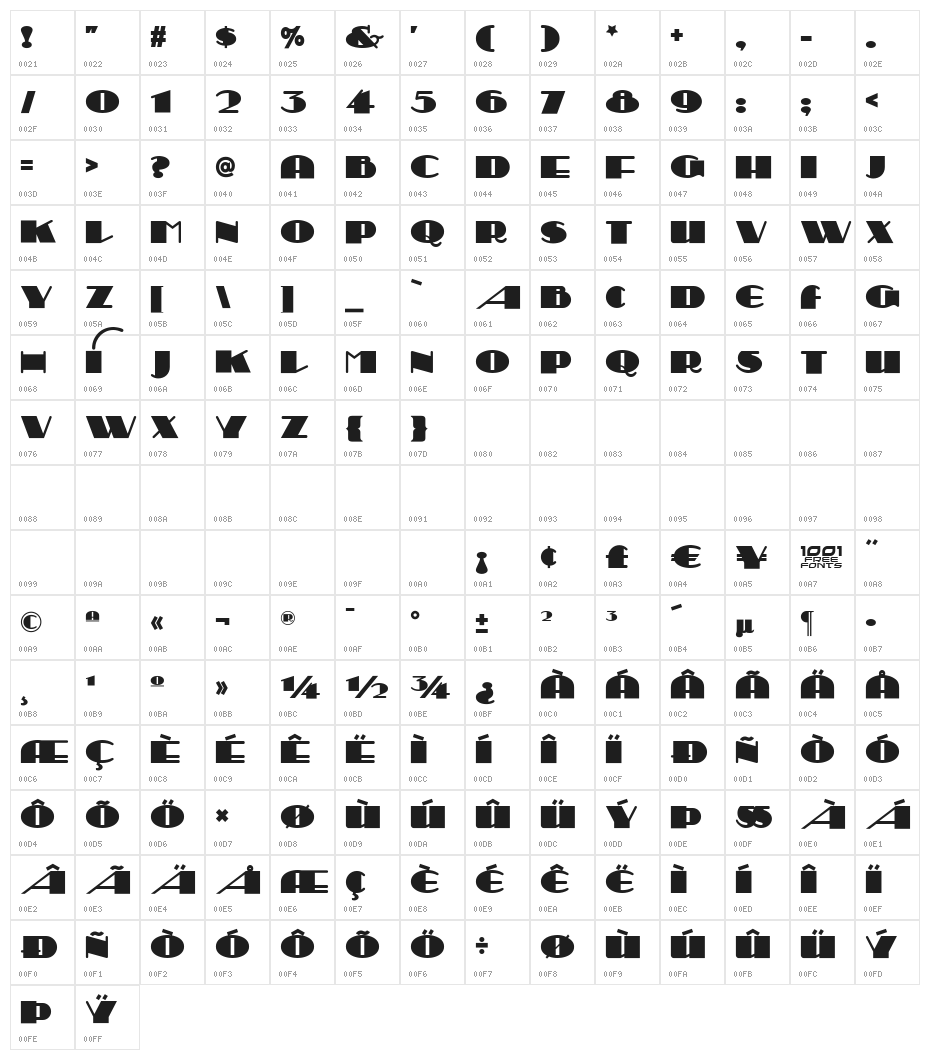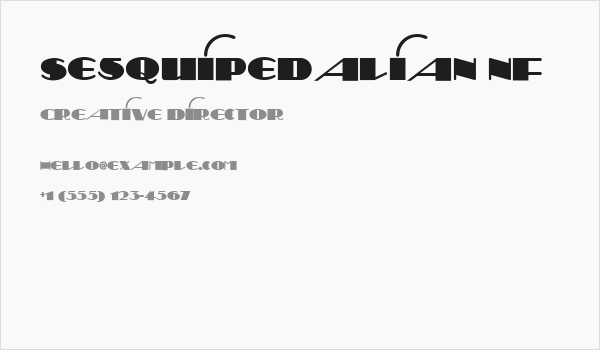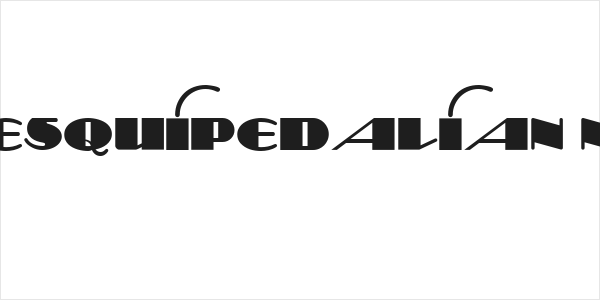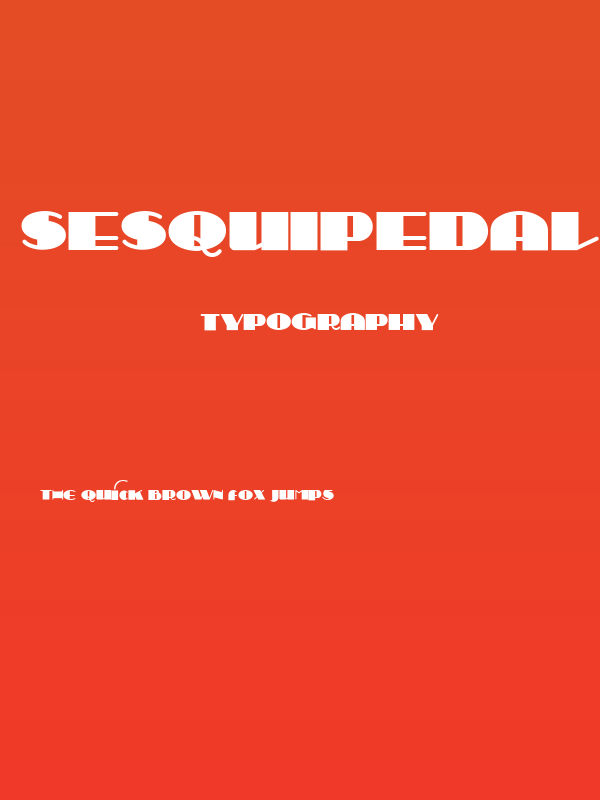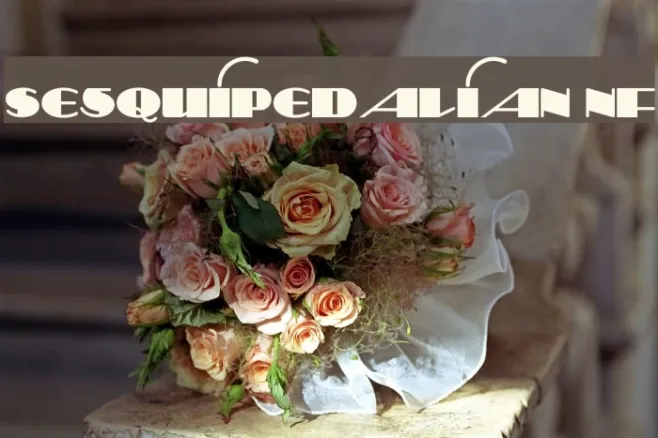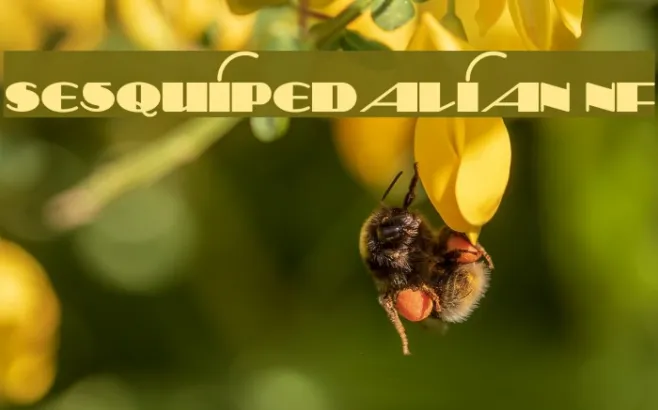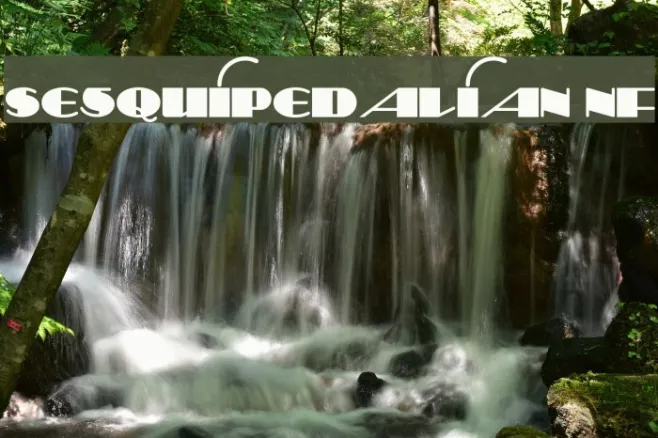
Sesquipedalian NF Font
Sesquipedalian NF Description
This font features a bold and striking design with a high contrast between thick and thin strokes, giving it a dramatic and impactful appearance. The characters are uniquely styled with a mix of geometric and organic shapes, creating a visually engaging and dynamic look. The uppercase letters are particularly bold, while the lowercase letters maintain a consistent style, adding to the overall cohesiveness of the font. The numerals and special characters follow the same bold and distinctive style, making them stand out. This font is ideal for projects that require a strong visual presence and a touch of creativity.
| Proposed Projects | Ideal for posters, logos, branding, and headlines where a strong visual impact is needed. |